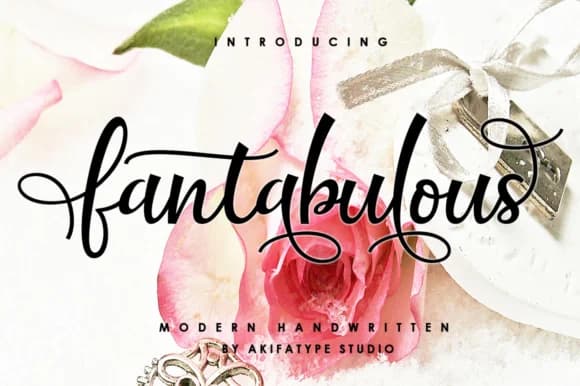
Fantabulous by akifatype is a handwritten script that balances flowing elegance with genuine legibility. While many ornate scripts prioritize decoration over clarity, this typeface delivers the personal, human-drawn aesthetic that modern brands covet while maintaining excellent readability at various sizes. The smooth letterforms carry both sophistication and approachability, making it suitable for designers who need emotional resonance without sacrificing professional clarity. This script's clean execution makes it particularly effective for projects where authenticity strengthens the design. Wedding invitation suites gain warmth and personality from its sophisticated character without losing formality. Boutique product labels benefit from the artisanal credibility this script conveys, the authenticity consumers value when purchasing handmade or specialty goods. Social media graphics, custom greeting card designs, and small-business branding projects all thrive with a typeface that feels personal yet polished, distinctive yet readable. Fantabulous shines wherever personality enhances functionality. Designers use it for event menus, promotional signage, packaging for handmade goods, and brand identity systems that need character without excess. The consistent letterform rhythm makes it genuinely useful across applications rather than merely decorative. Whether you're building cohesive visual systems for creative ventures or adding dimension to individual projects, this font delivers the balance between style and substance that professional work demands. Add Fantabulous to your creative toolkit through Creative Fabrica.
- Elegant, Flowing, Fantabulous
Fantabulous Font is a script font that shines as a display or heading face. Pair it with a clean sans-serif or serif font for body text β the contrast creates a clear hierarchy while the two styles stay balanced and easy to read.
Fantabulous Font
by akifatype